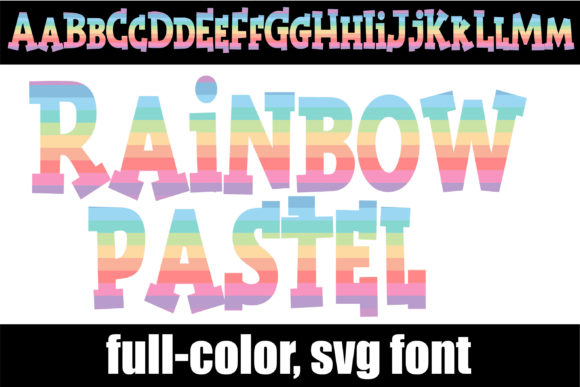
Looking for a whimsical and colorful font to elevate your designs? Look no further than Rainbow Pastel Font, the best font for SVG projects! Created by Illustration Ink, this serif font boasts a rainbow stripe of pastels on each glyph, adding a playful touch to any project.
But what sets Rainbow Pastel Font apart from other fonts on the market is its compatibility with popular design programs like Photoshop, Illustrator, Silhouette, and Inkscape. This color font (Opentype-SVG) is perfect for adding a pop of color to any project, from logos to social media graphics.
Whether you're a seasoned designer or just starting out, Rainbow Pastel Font is the perfect addition to your font collection. Don't settle for bland and generic fonts - let Rainbow Pastel Font help you make a statement and stand out from the crowd.